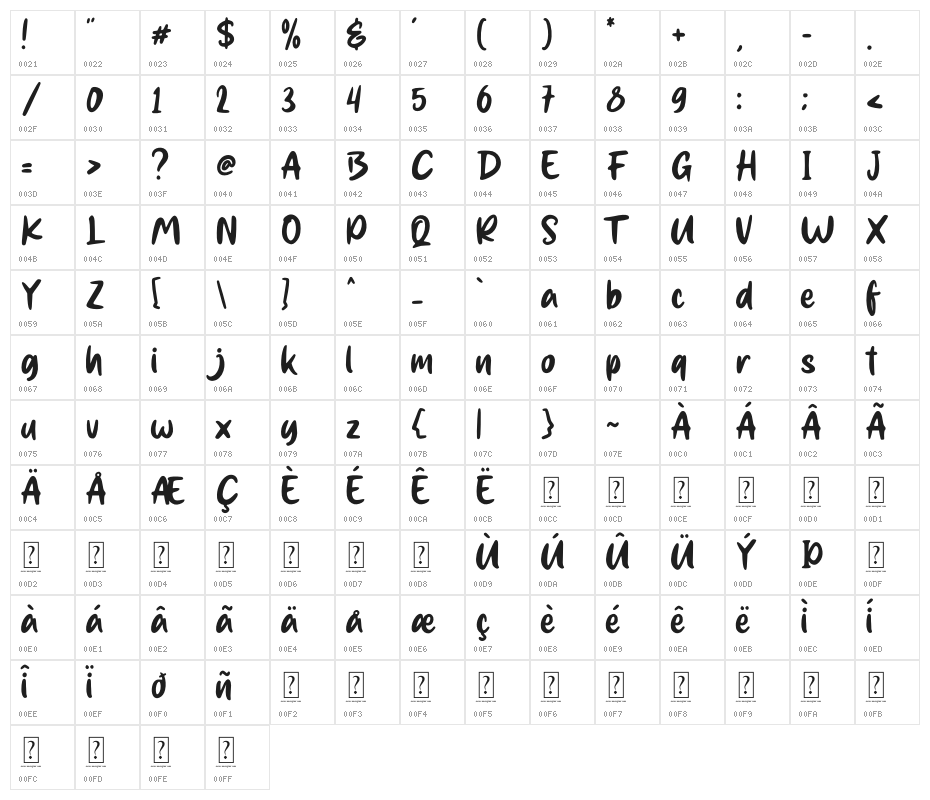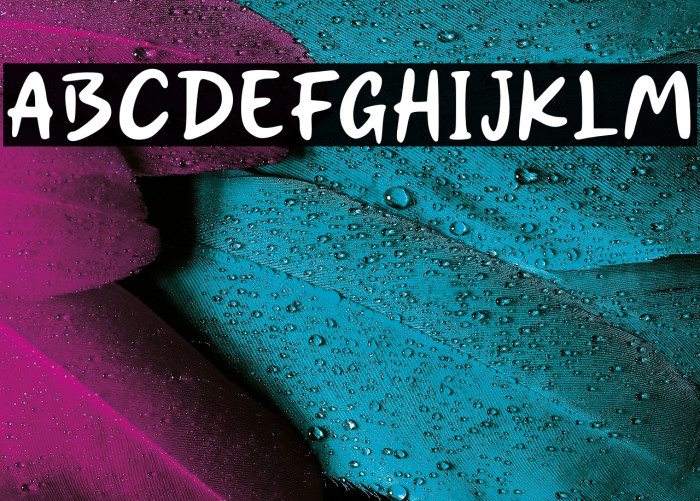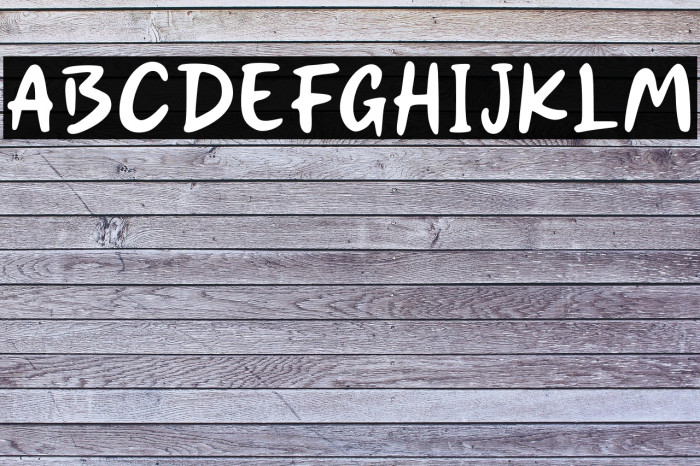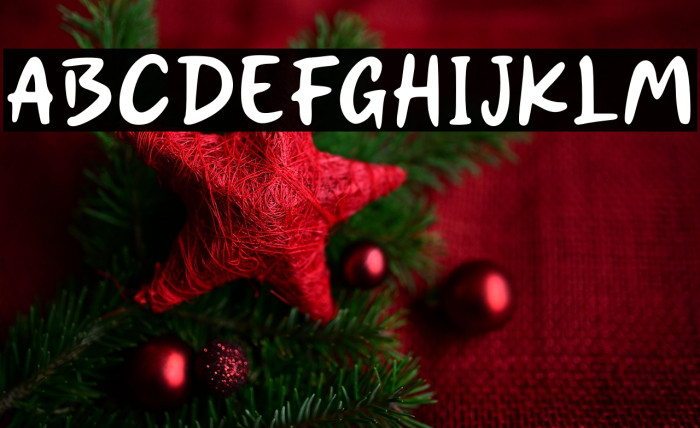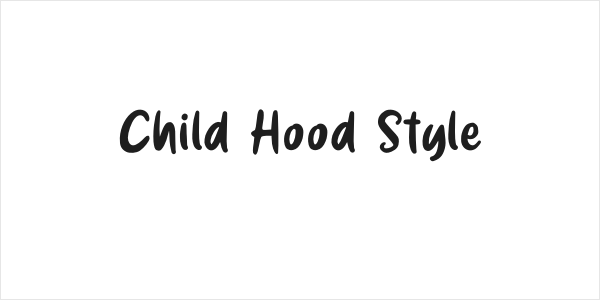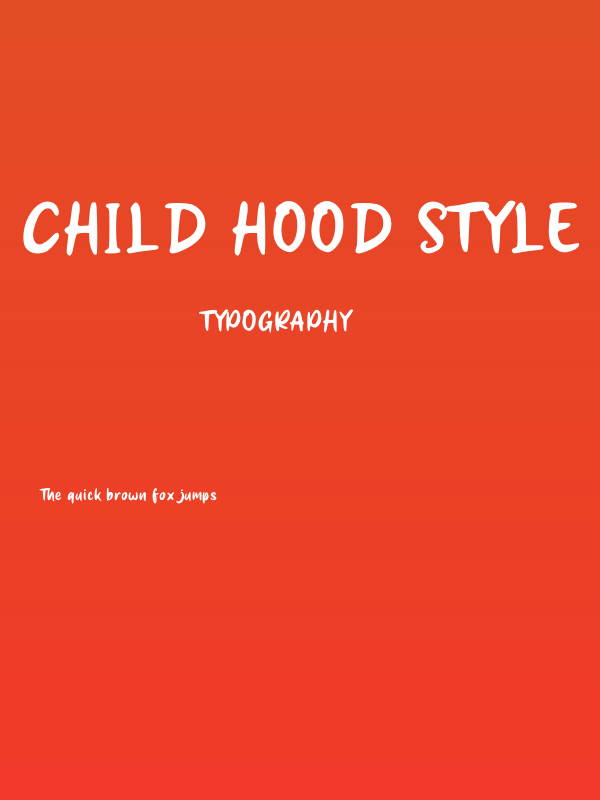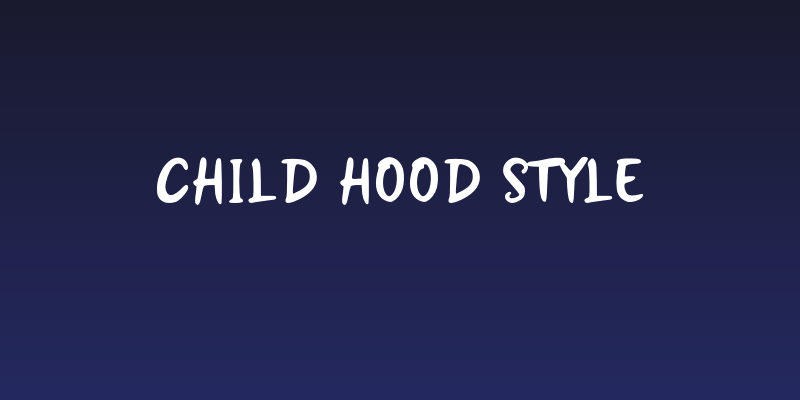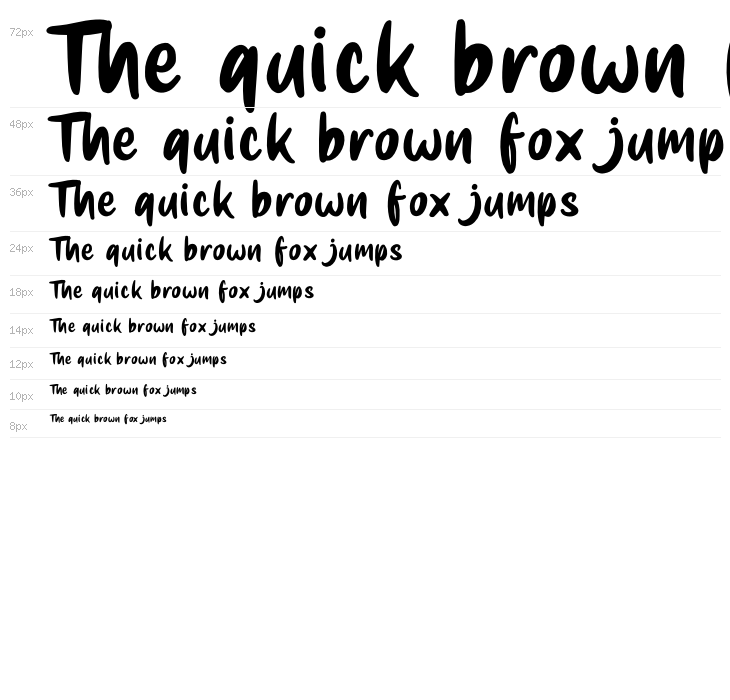
Child Hood Style Font
Child Hood Style Description
This playful and energetic font exudes a youthful charm, reminiscent of handwritten notes or doodles. The characters are bold and rounded, with a slightly irregular baseline that adds to its casual and friendly appearance. The uppercase and lowercase letters maintain a consistent style, with smooth curves and a lively bounce. Numbers and special characters are equally expressive, making the font versatile for various creative projects. Its informal style is perfect for designs that aim to capture a sense of fun and spontaneity.
| Proposed Projects | Ideal for children's books, playful branding, greeting cards, and informal invitations. |